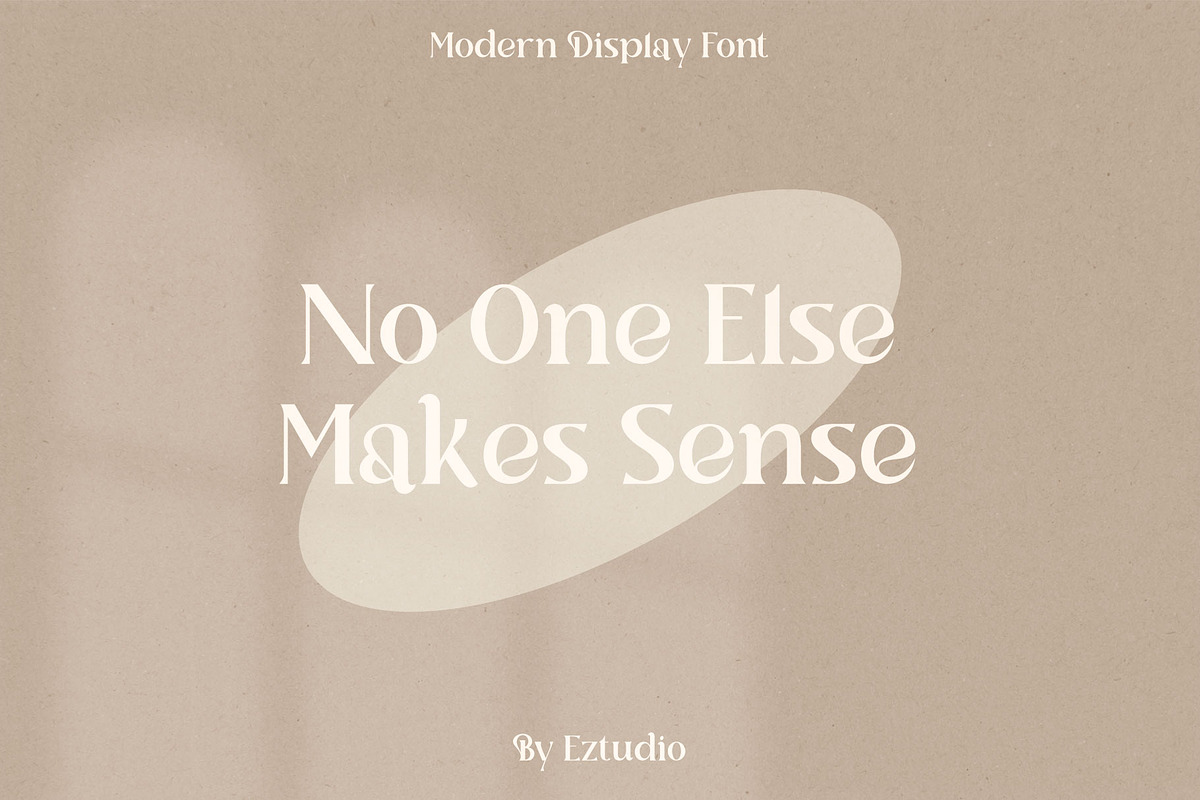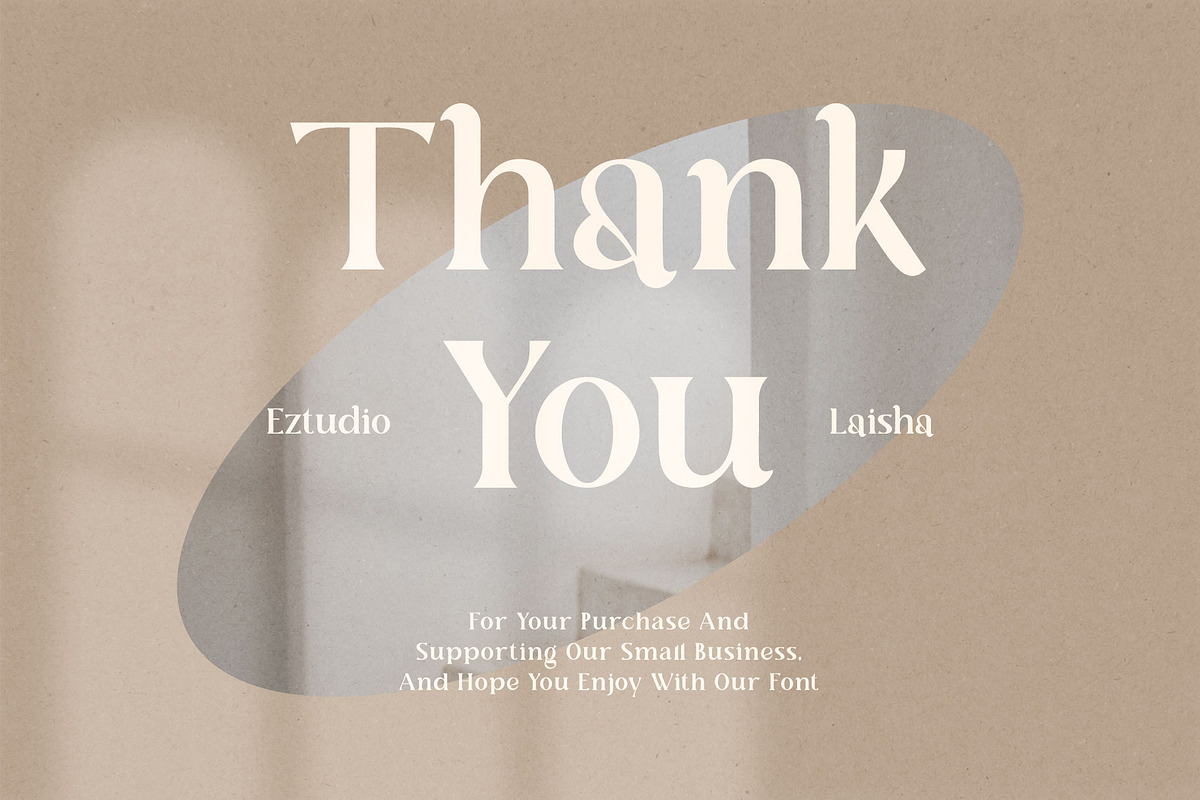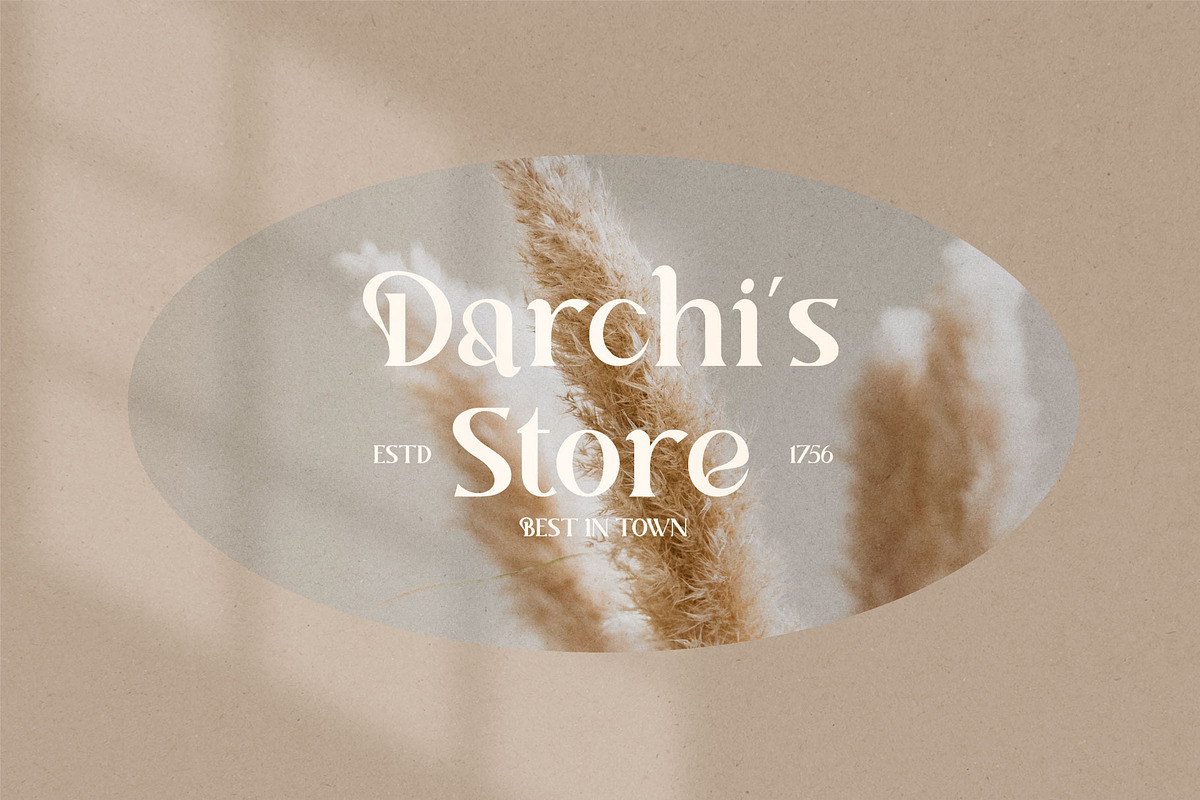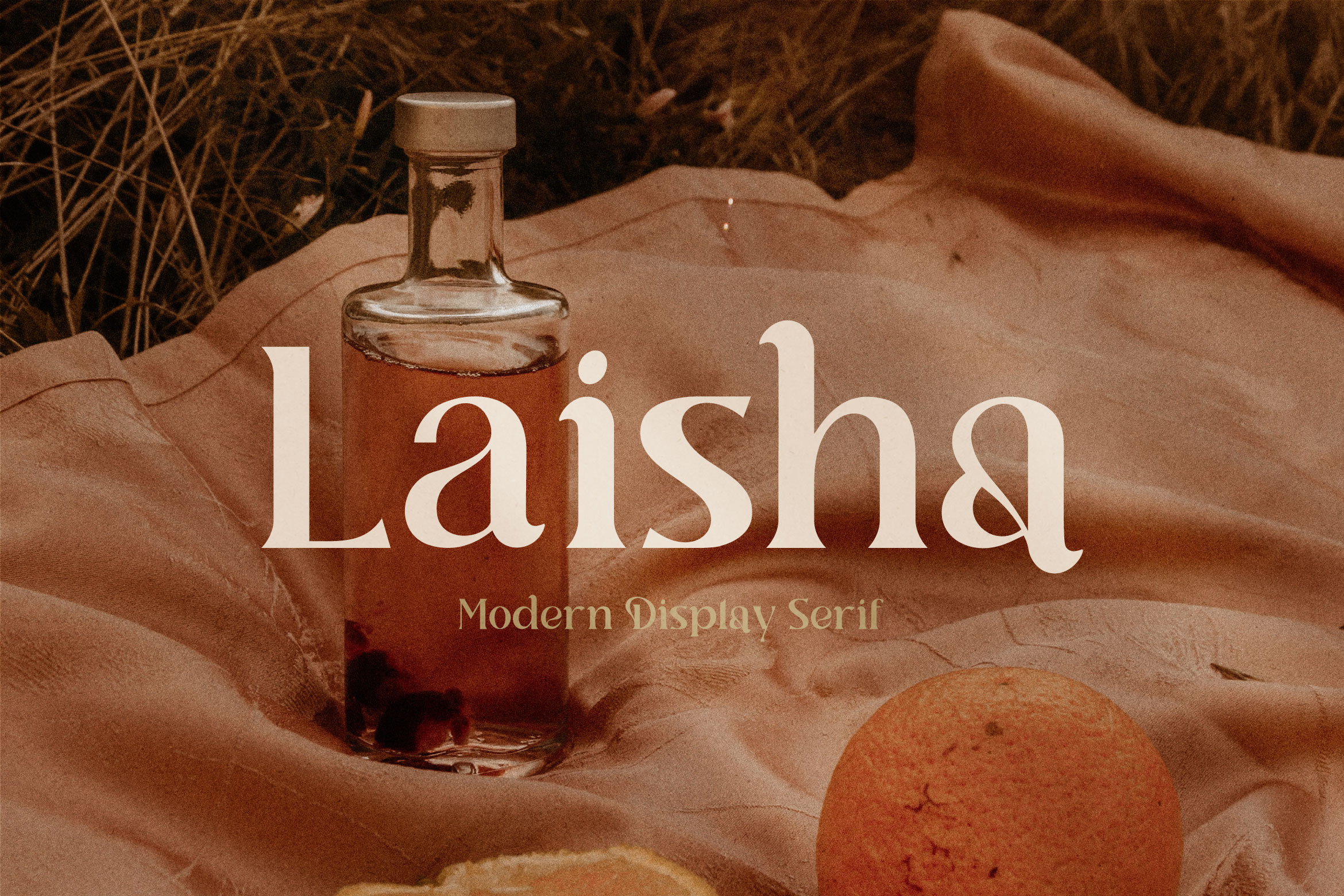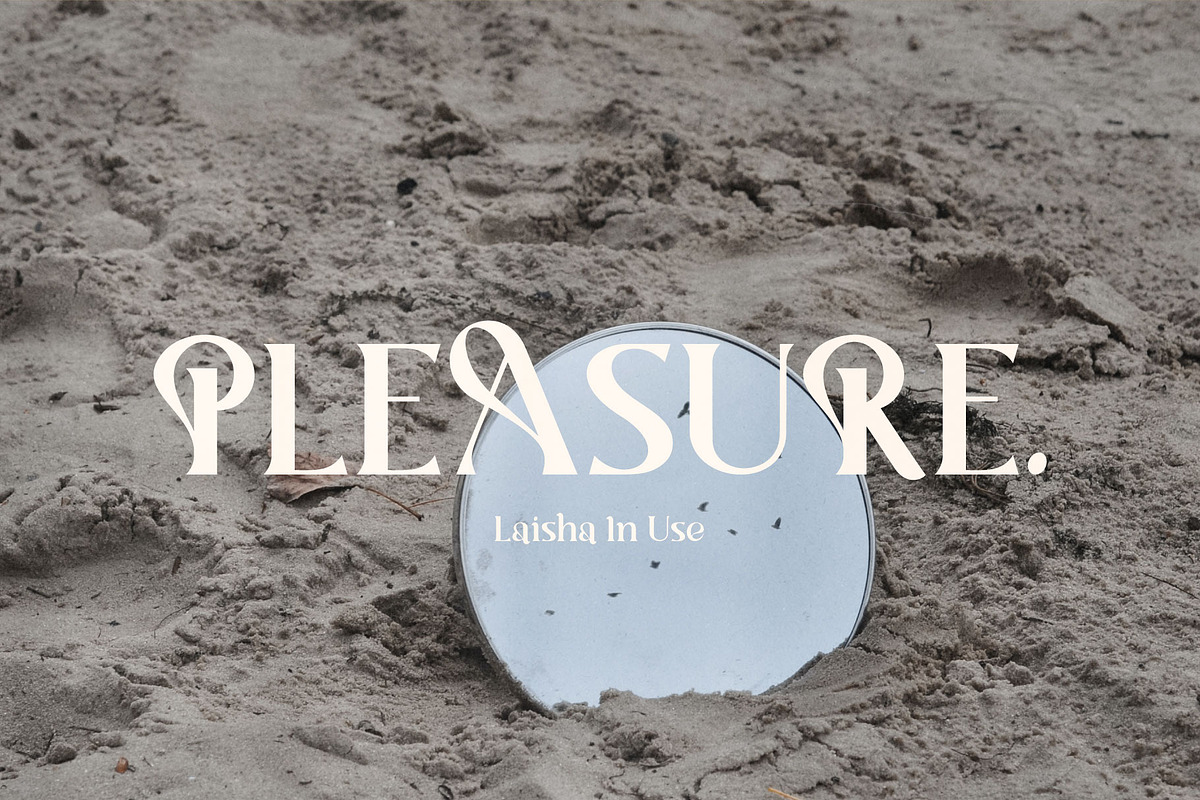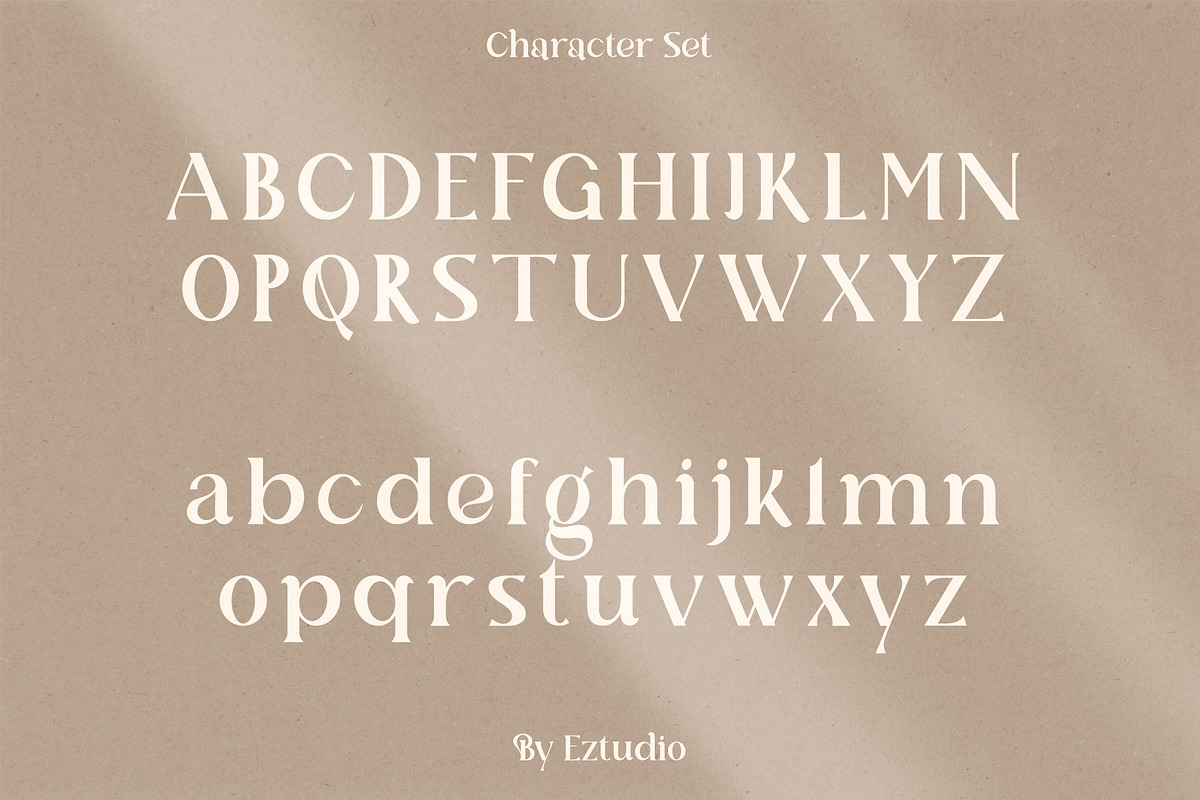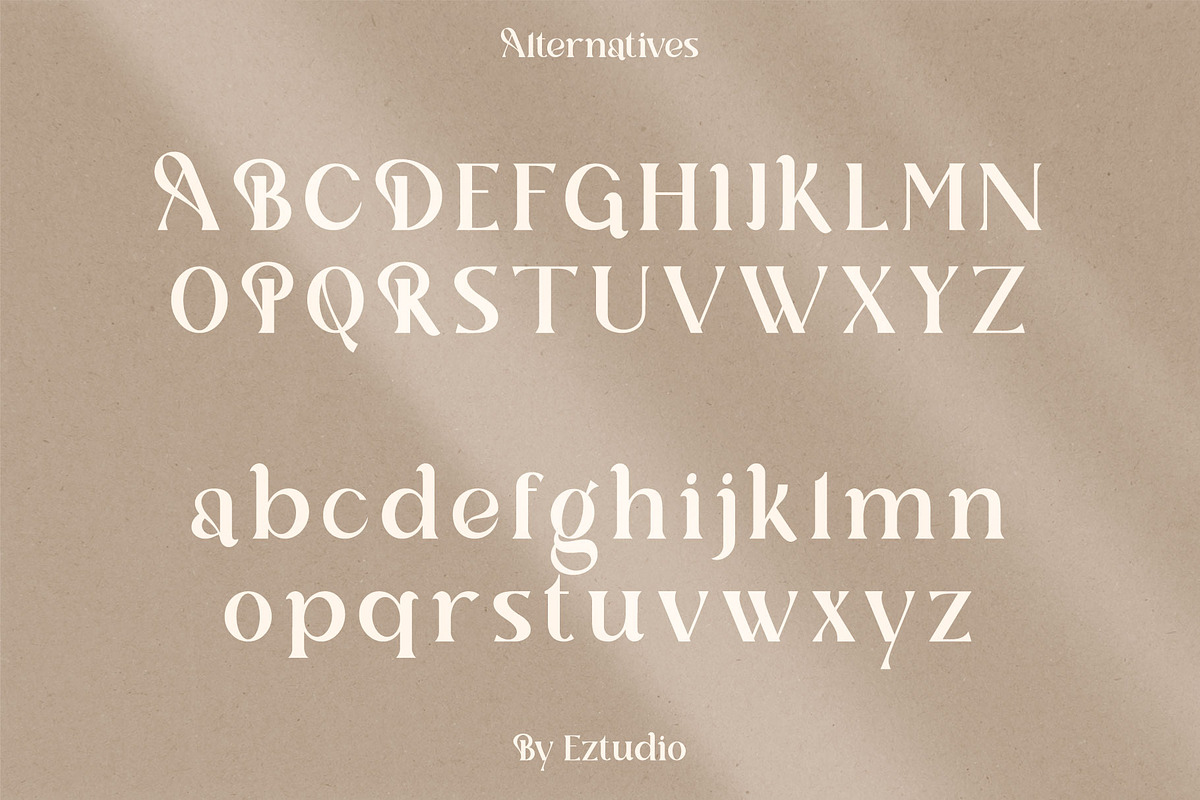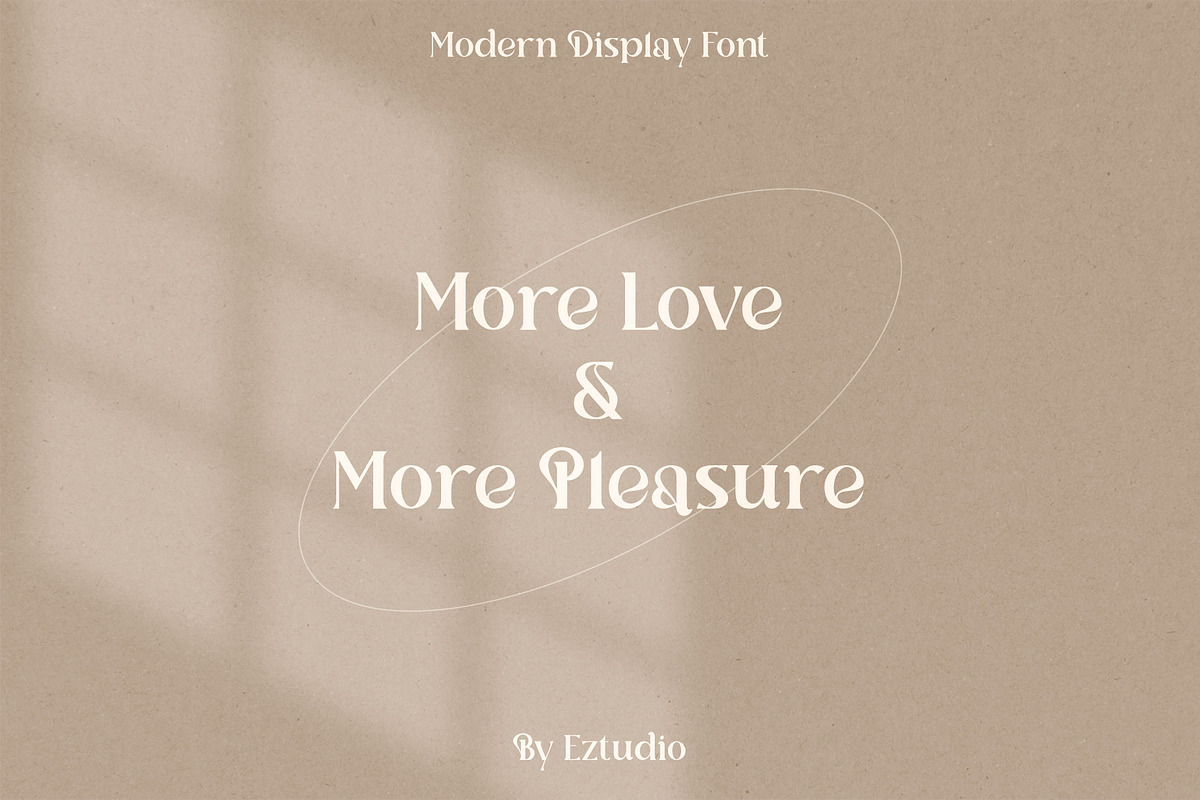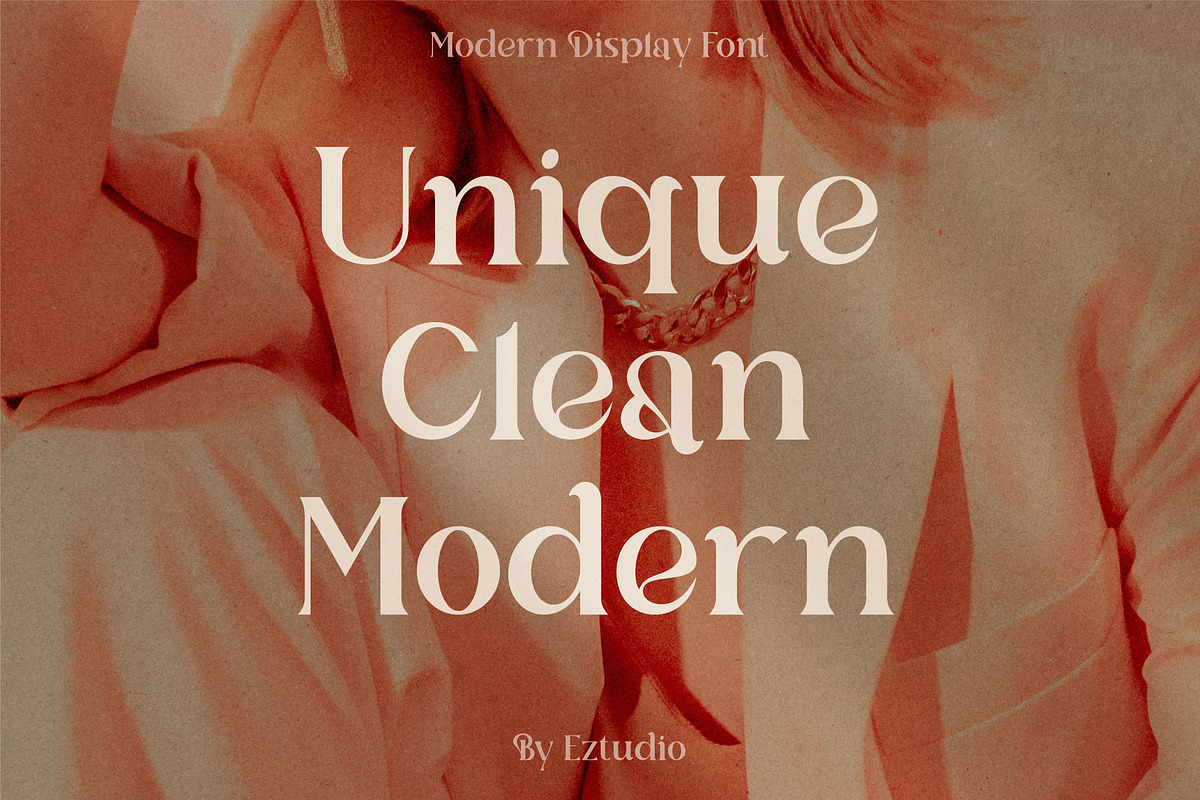
Laisha - Modern Display Font
Laisha is a thick lettered and modern display font. It will elevate a wide range of crafting ideas, from cards, to branding, labels and much more. Add it confidently to your favorite creations and let yourself be amazed by the outcome generated.